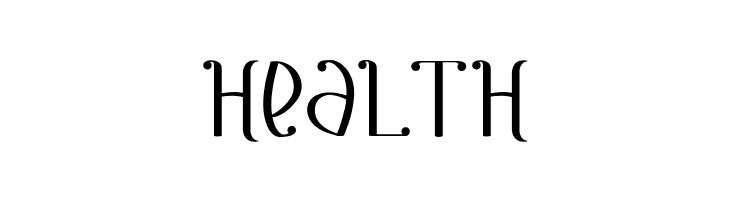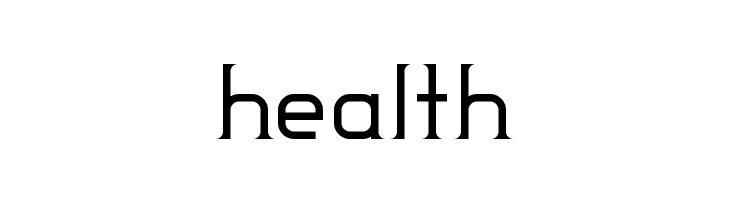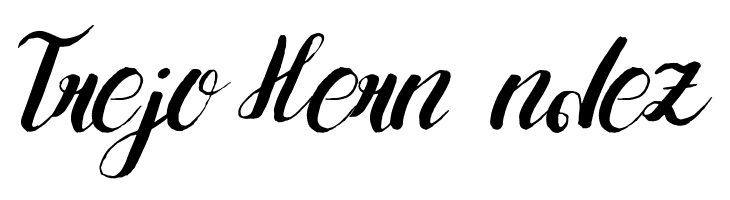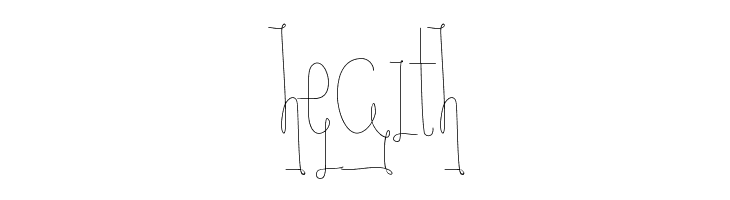
( Jay Mann )
A playful, hand-drawn outline font with quirky, rotated characters.
( Jay Mann )
A playful, hand-drawn outline font with a quirky and informal style.
( Jay Mann )
A bold, abstract font with a graffiti-like, chaotic style.
( Jay Mann )
A playful, hand-drawn font with irregular and dynamic letterforms.
( Janet Cordahi - www.eccentricity.net/ )
A whimsical and decorative serif font with a vintage-modern blend.
( Jorge Bedoy )
A modern geometric font with clean lines and angular cuts.
( M#rm#n - Mar Man )
A decorative, artistic font with thin lines and looped elements.
( Leonard Posavec - LeoSupply.co - Leonard Posavec - leosupply.co )
A dynamic and flowing script font with elegant, cursive letterforms.
( Léa Morand - alealaplage.weebly.com/ )
A dynamic font with a mix of bold and thin strokes, offering a creative and artistic look.
A bold, 3D geometric font with a modern, futuristic style.